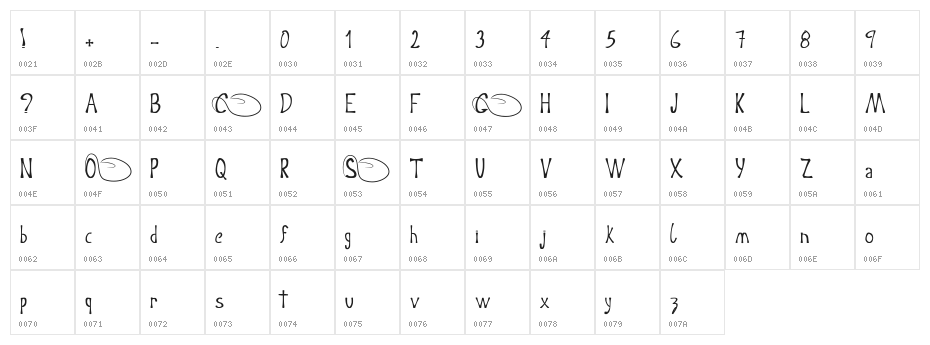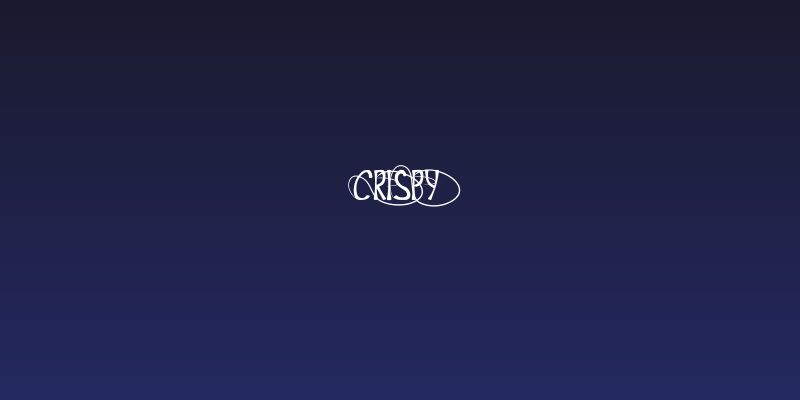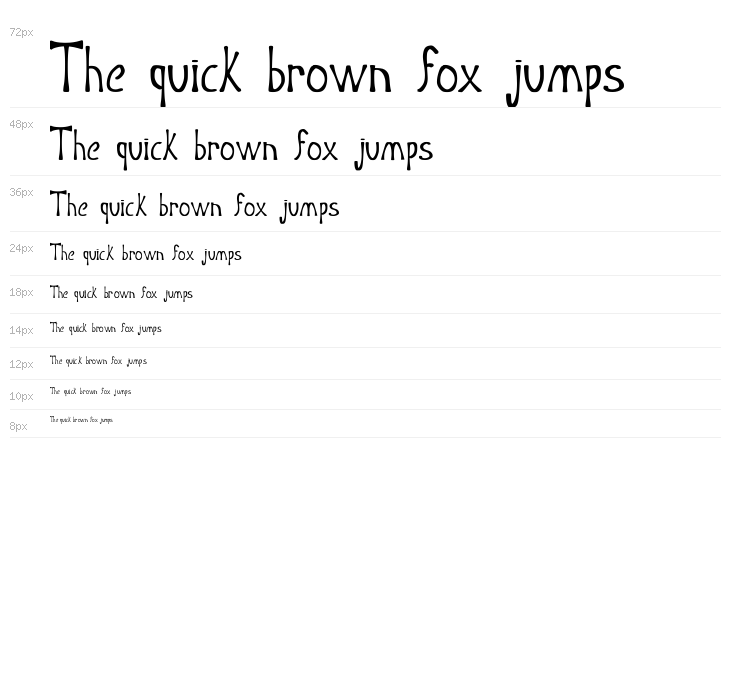
Crispy Font
Crispy Description
This font features a playful and whimsical design, characterized by its irregular and dynamic letterforms. The uppercase letters exhibit a unique, hand-drawn style with varying stroke widths, giving them a lively and energetic appearance. The lowercase letters maintain this playful aesthetic, with some characters featuring distinctive loops and curves. The numerals are consistent with the overall style, offering a quirky and informal look. Special characters are creatively integrated, enhancing the font's artistic appeal. This font is ideal for projects that require a fun and engaging visual element.